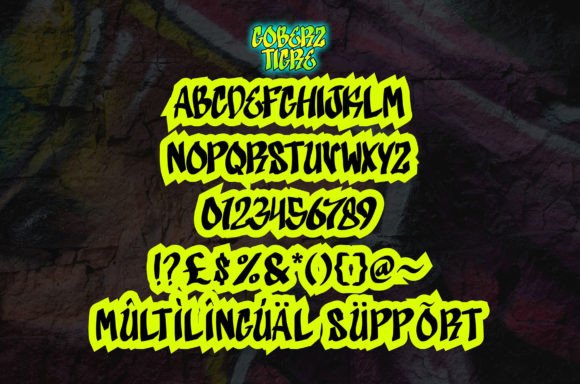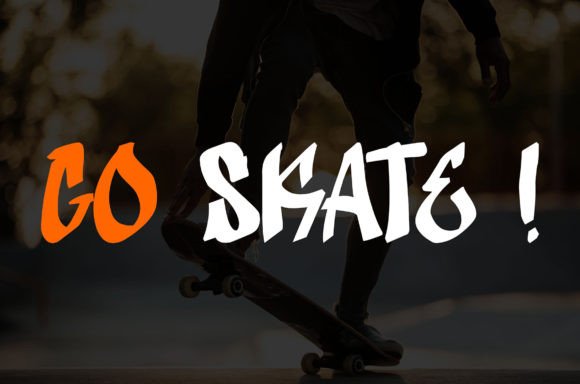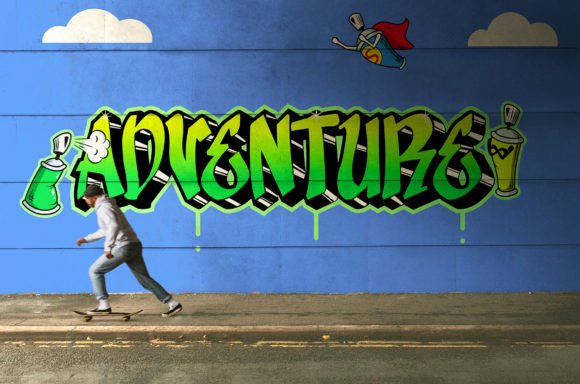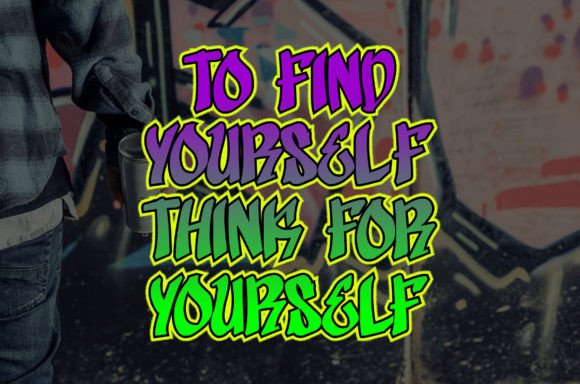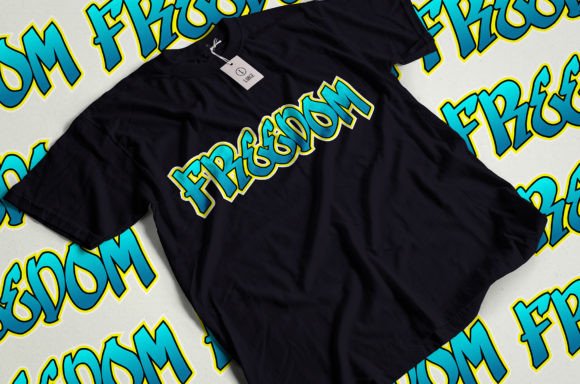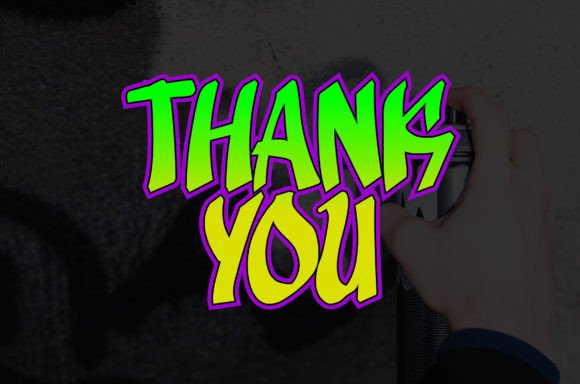
Introduction to Goberz Tigre Font
Remember that moment when you’re brainstorming ideas for your next creative project, and you need a font that screams ‘make a statement’? That’s exactly where the Goberz Tigre Font comes in – a bold, eye-catching, and edgy graffiti font that will elevate your designs to the next level.
Key Features of Goberz Tigre Font
- Unique, high-quality font design ideal for creative projects, with a distinctive style that can add a touch of sophistication to any design.
- Includes a wide range of characters, including uppercase and lowercase letters, numbers, and punctuation marks, making it a versatile font for various creative projects.
- Supports multiple languages, making it a great resource for designers and writers working on international projects.
Honest Review: Goberz Tigre Font
I recently had the chance to work with the Goberz Tigre Font, and I must say, it’s been a great addition to my design resource library. One of the things that really stands out about this font is its unique, hand-drawn feel that adds a touch of personality to any creative project.
Here are some things that work well about the Goberz Tigre Font:
- ✨ Unique, high-quality design that sets it apart from more generic fonts.
- ✨ Supports a wide range of languages, making it a great option for global design projects.
However, there are a few limitations to be aware of:
- ⚠️ The font doesn’t come with a transparent background option, which may be a problem for designers who need to use it over complex backgrounds.
- ⚠️ Some users have reported issues with font rendering on certain systems, which may affect its performance in certain situations.
Overall, I’m really impressed with the Goberz Tigre Font, and I think it’s a great option for designers who are looking for a unique, high-quality font for their creative projects. Just be aware of its limitations, and you’ll be all set.